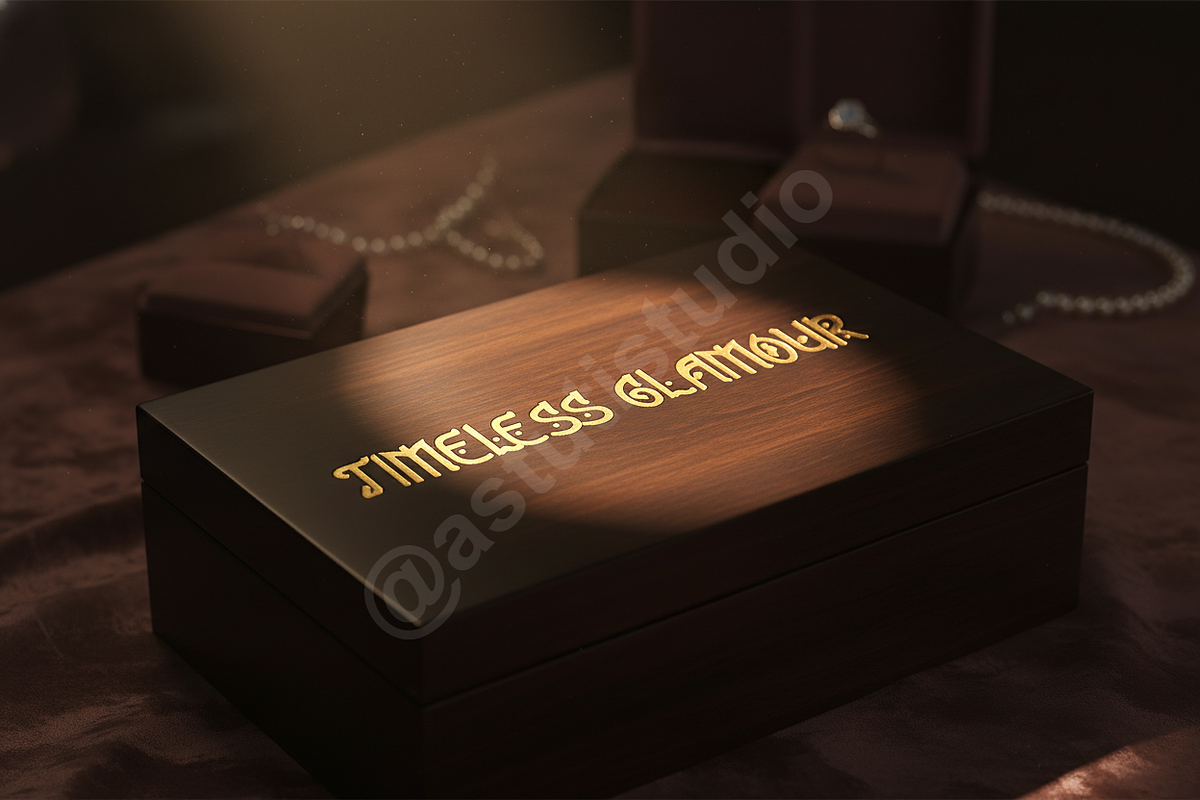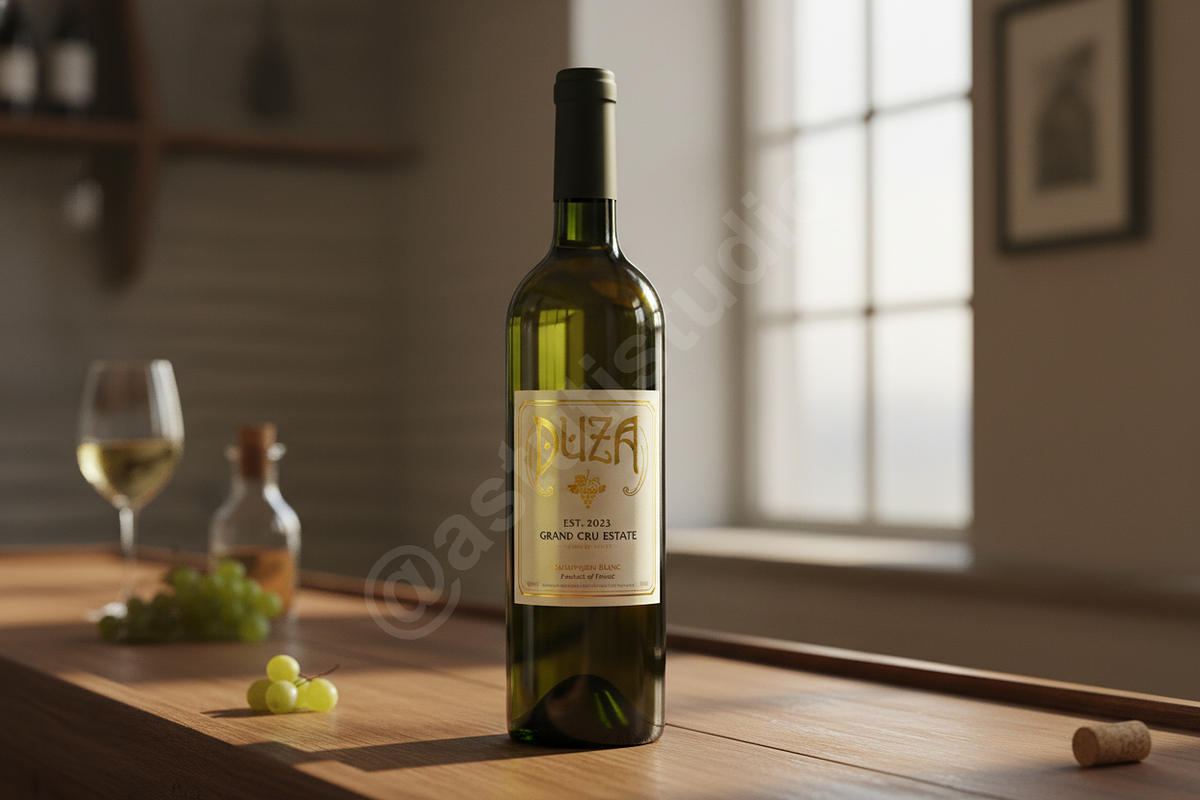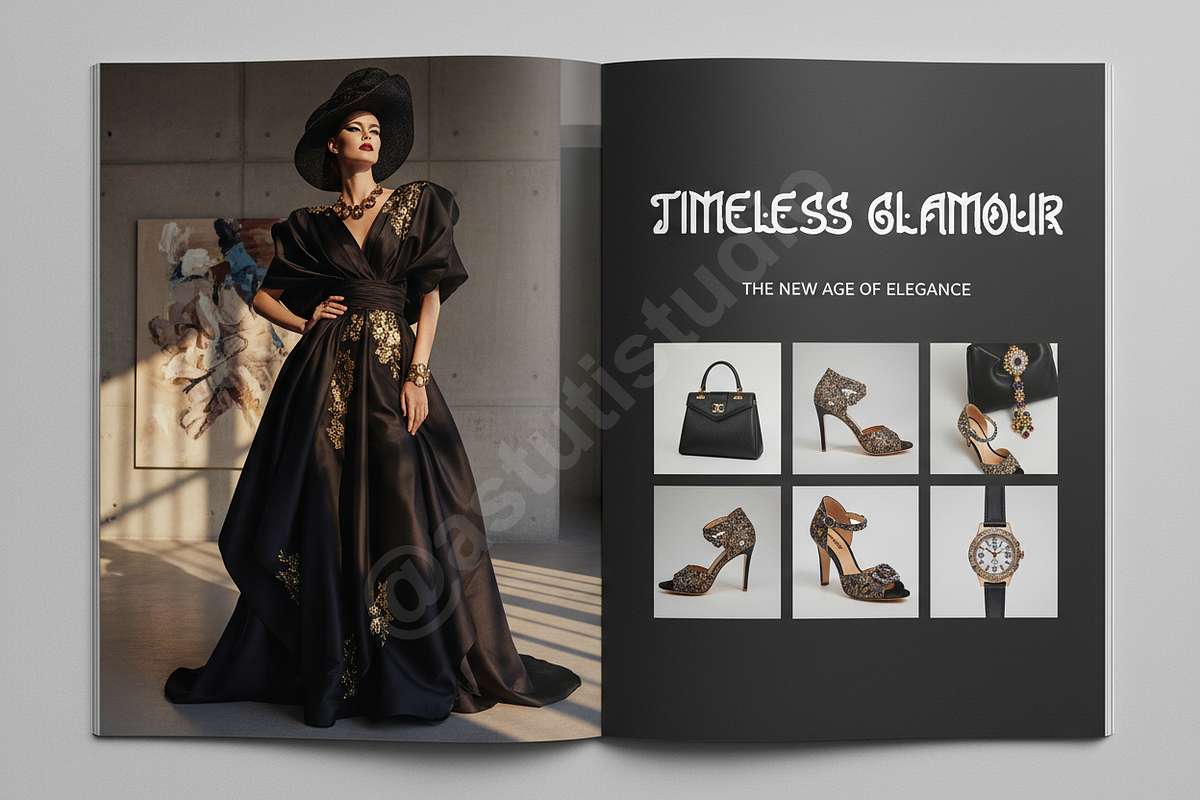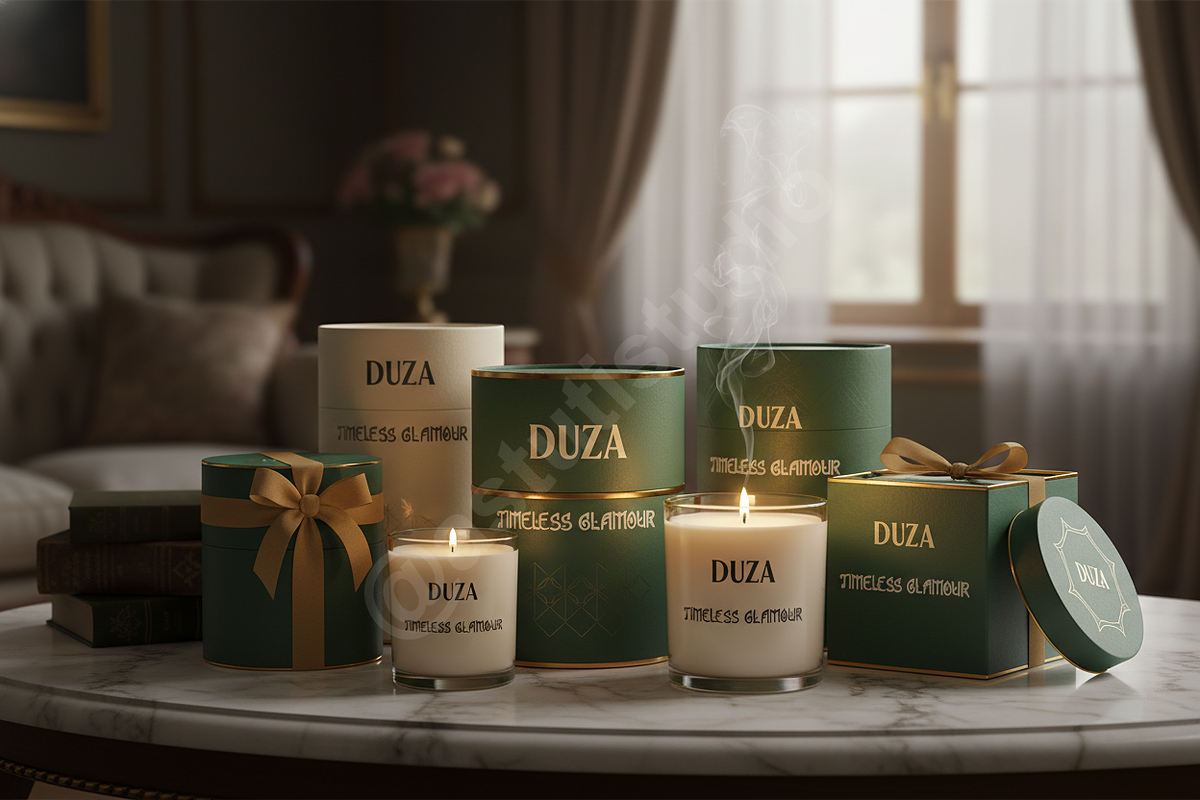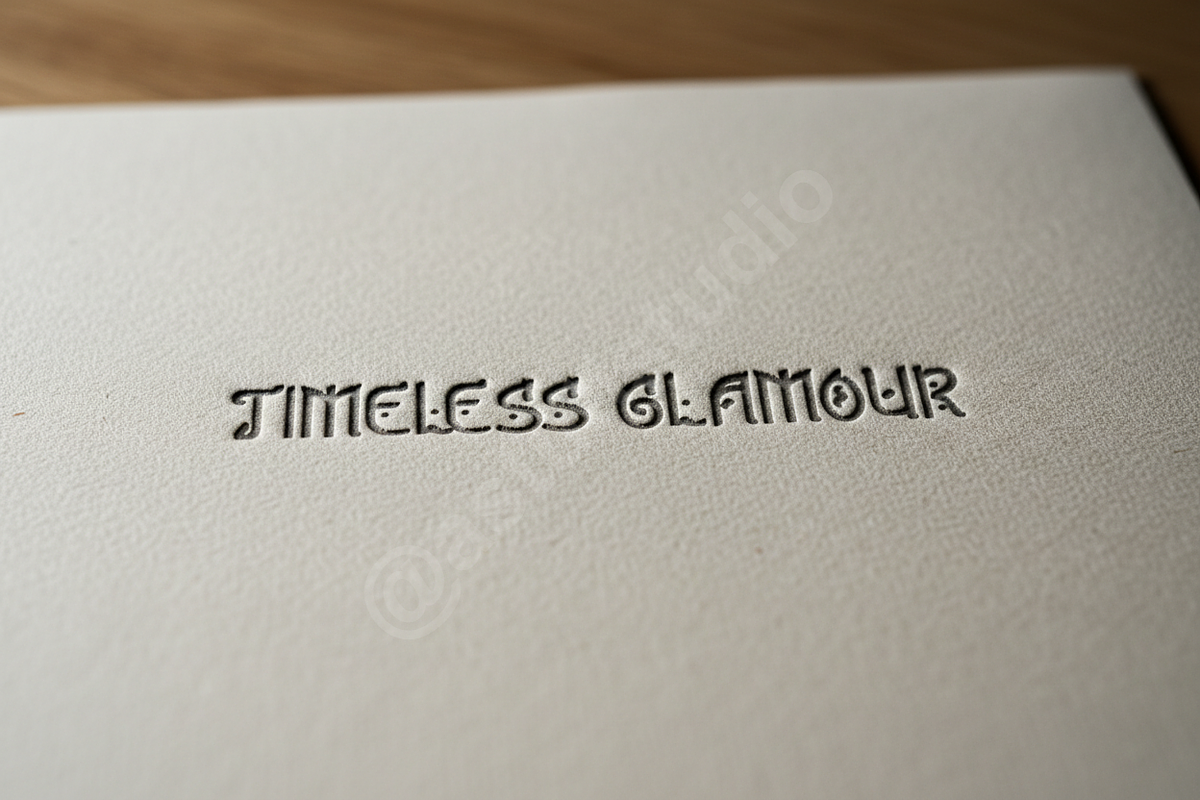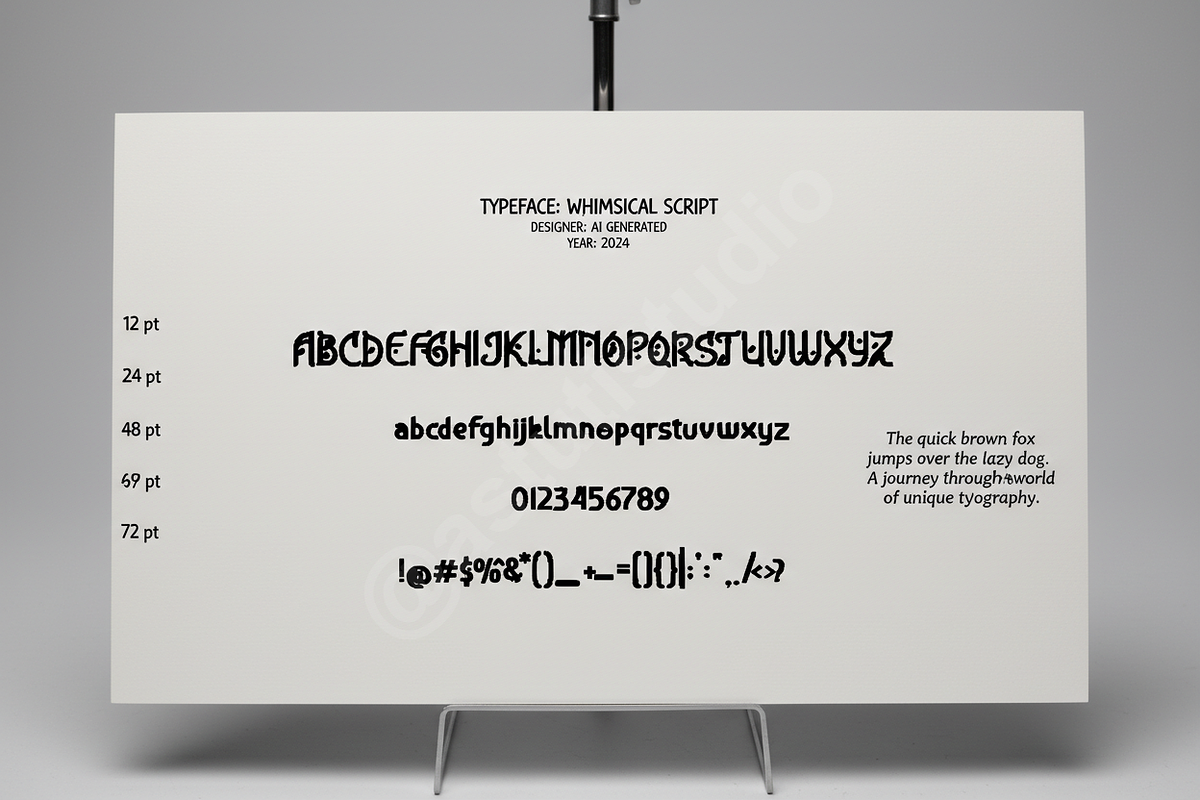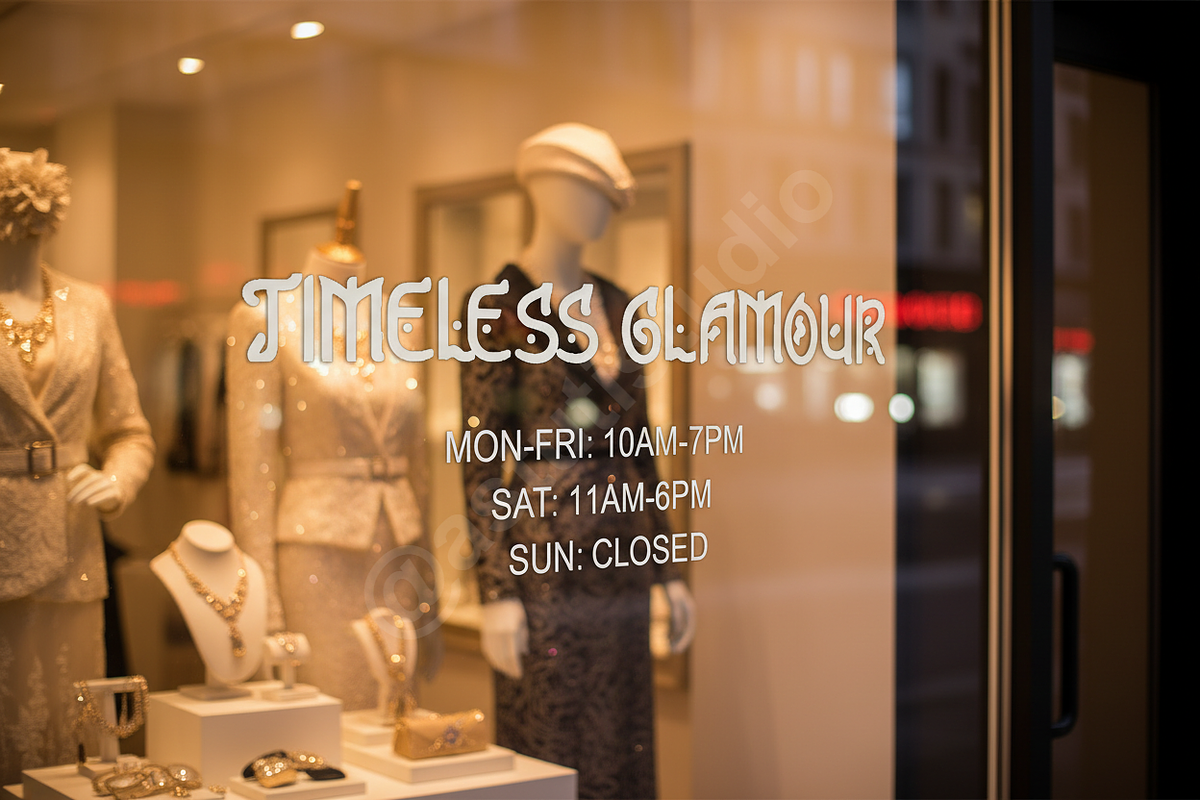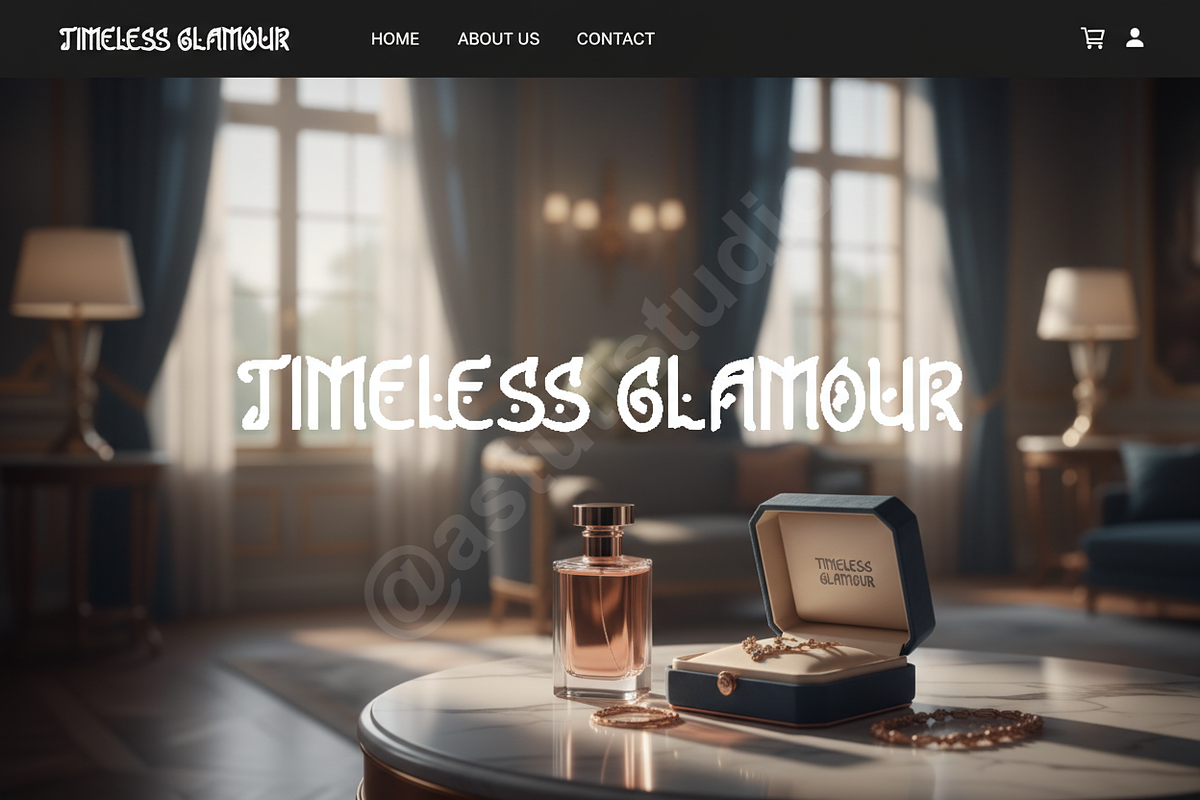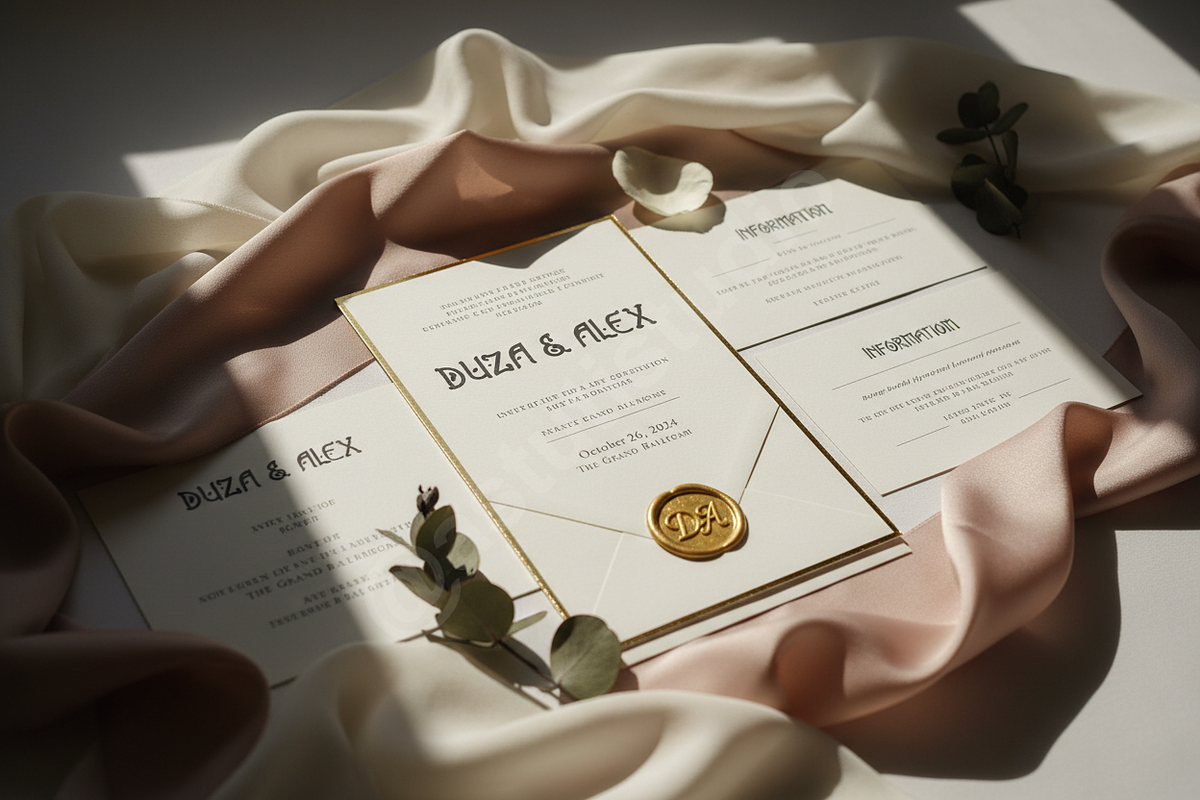
Duza - High-Contrast Elegant Display
Introducing Duza, a sophisticated high-contrast serif typeface designed for the discerning creative. Duza blends timeless elegance with sharp, modern precision, making it the definitive choice for projects demanding refinement and immediate impact.
Duza is expertly crafted by our premium studio to capture the essence of high fashion and luxury typography, ensuring your branding stands out in a saturated market.
KEY FEATURES & VERSATILITY
Duza is engineered to excel across multiple luxury applications:
- Perfect for Luxury Branding: Logo design, high-end packaging, and exclusive collateral.
- Editorial Excellence: Stunning magazine layouts, sophisticated book covers, and premium publishing.
- Digital Impact: Highly legible for website headers, high-fidelity social media graphics, and contemporary applications.
- Extensive multilingual support including full Latin language coverage (A-Z, a-z, 0-9, Punctuation).
- Includes beautiful stylistic alternates and refined ligatures to enhance typographic fluidity.